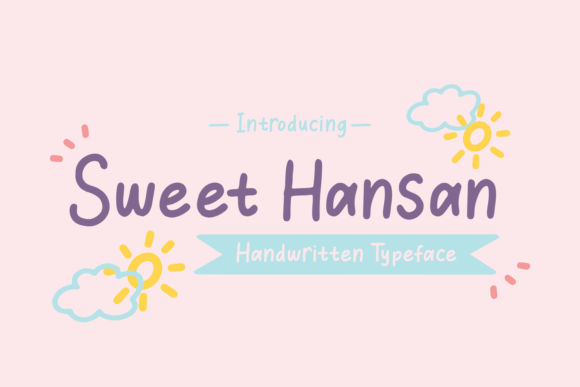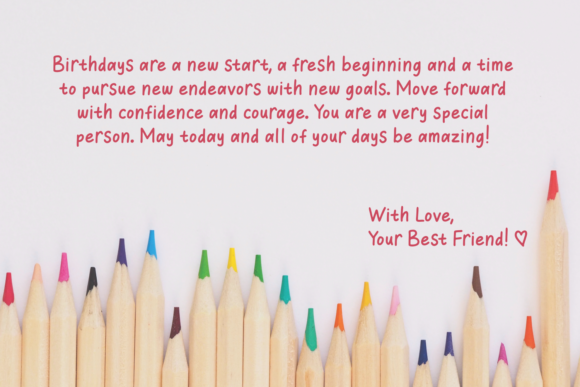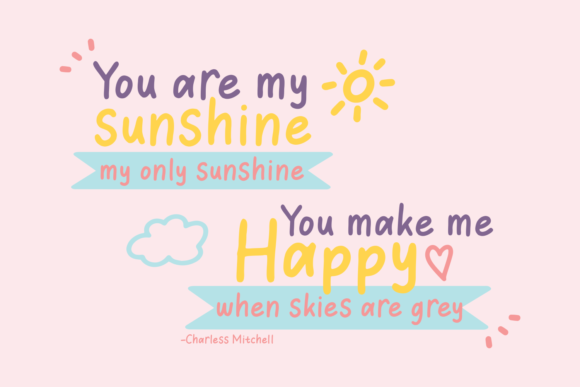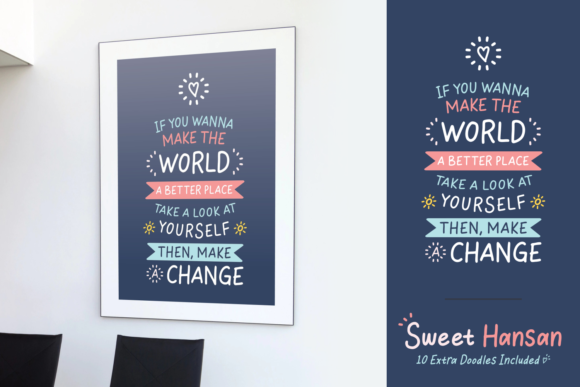
Sweet Hansan Font
About Sweet Hansan Font
Sweet Hansan is a super cute mono-line font that comes in 2 versions: Regular & Italic.
Perfect for playful or kids designs.